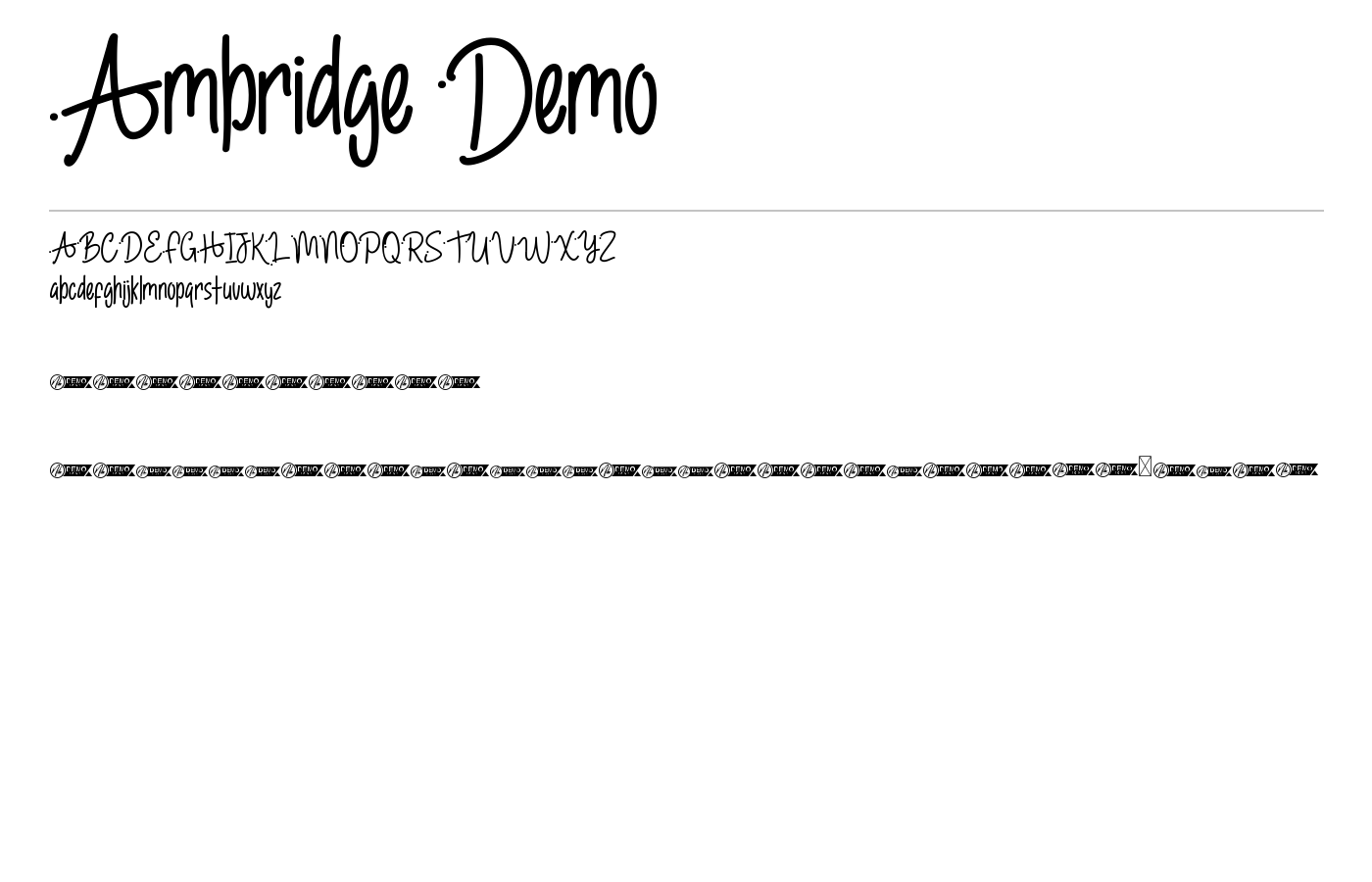
Ambridge Demo is a playful, handwritten sans serif font with a casual and lively feel. Its tall, narrow letterforms and irregular strokes give it an energetic, personal touch that works well for creative projects, informal branding, and fun editorial designs. This font is ideal for adding a friendly, approachable vibe to headlines, invitations, and social media graphics.
Ambridge Demo Font
About Ambridge Demo Font